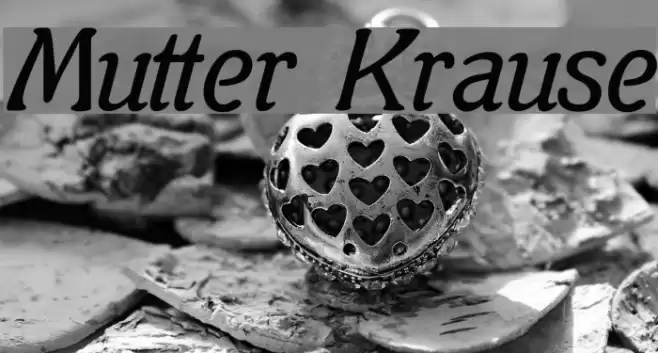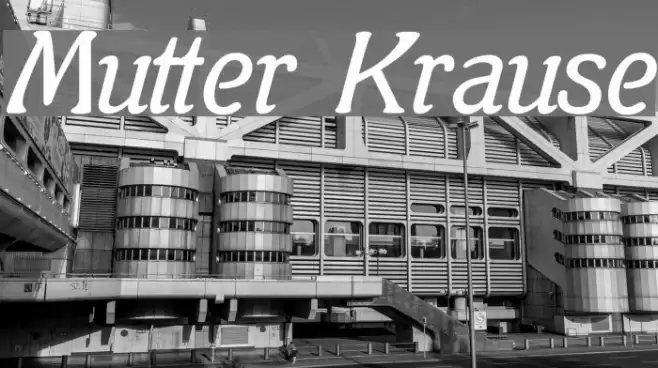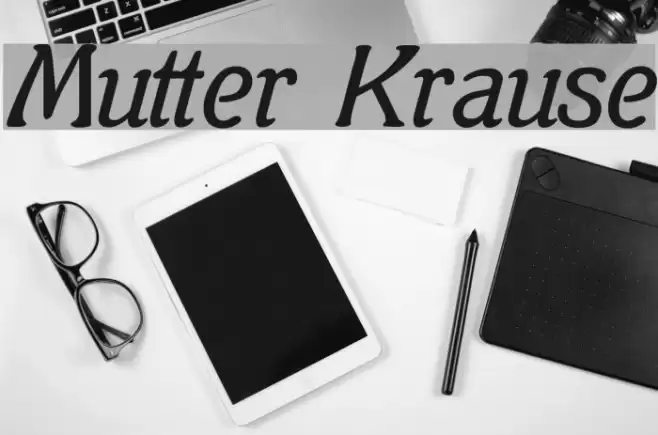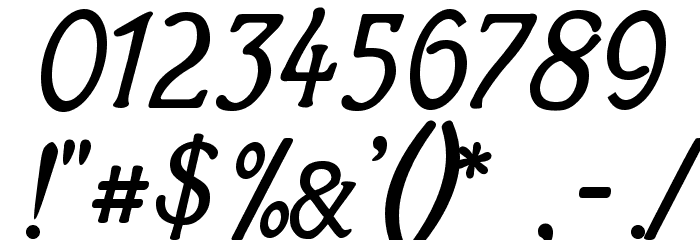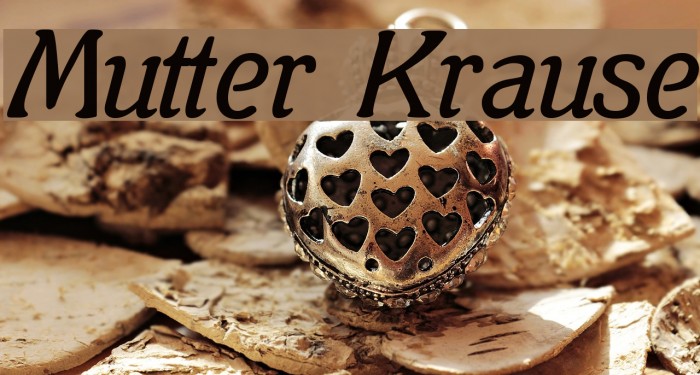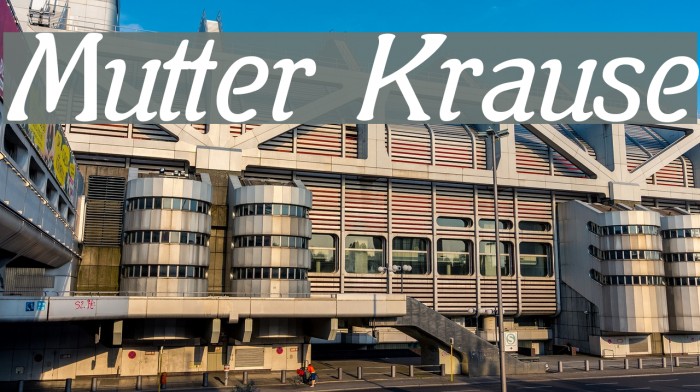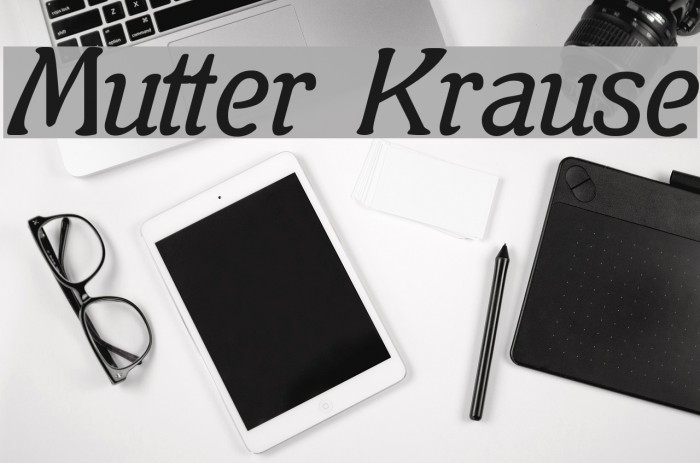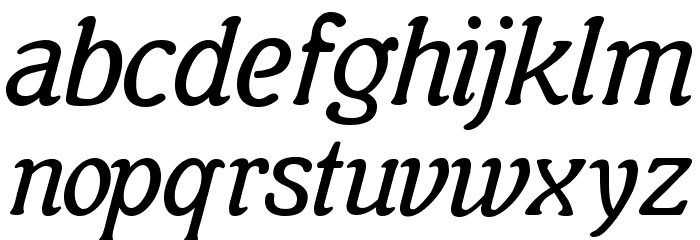
This font exhibits a classic and elegant style with a slight slant, giving it a sophisticated and dynamic appearance. The characters are well-defined with smooth curves and a moderate contrast in stroke thickness, which enhances readability while maintaining a stylish flair. The uppercase letters are bold and commanding, while the lowercase letters are more delicate, offering a nice balance. The numerals are clear and consistent, matching the overall aesthetic. Special characters are distinct and well-integrated, making this font versatile for various applications.
A classic, elegant font with a slight slant and moderate contrast, ideal for sophisticated designs from Uncategorized fonts.
- Proposed Projects: Ideal for wedding invitations, formal event programs, branding for luxury products, and editorial design.
- Overall Style: Classic